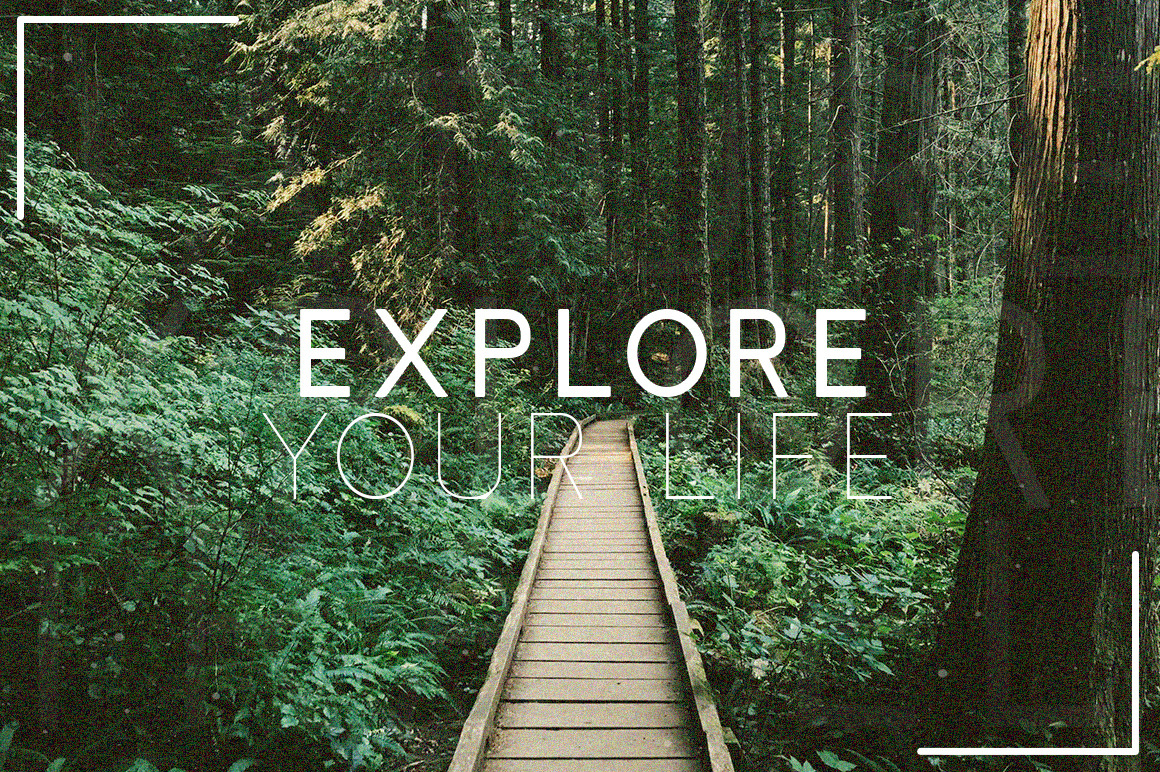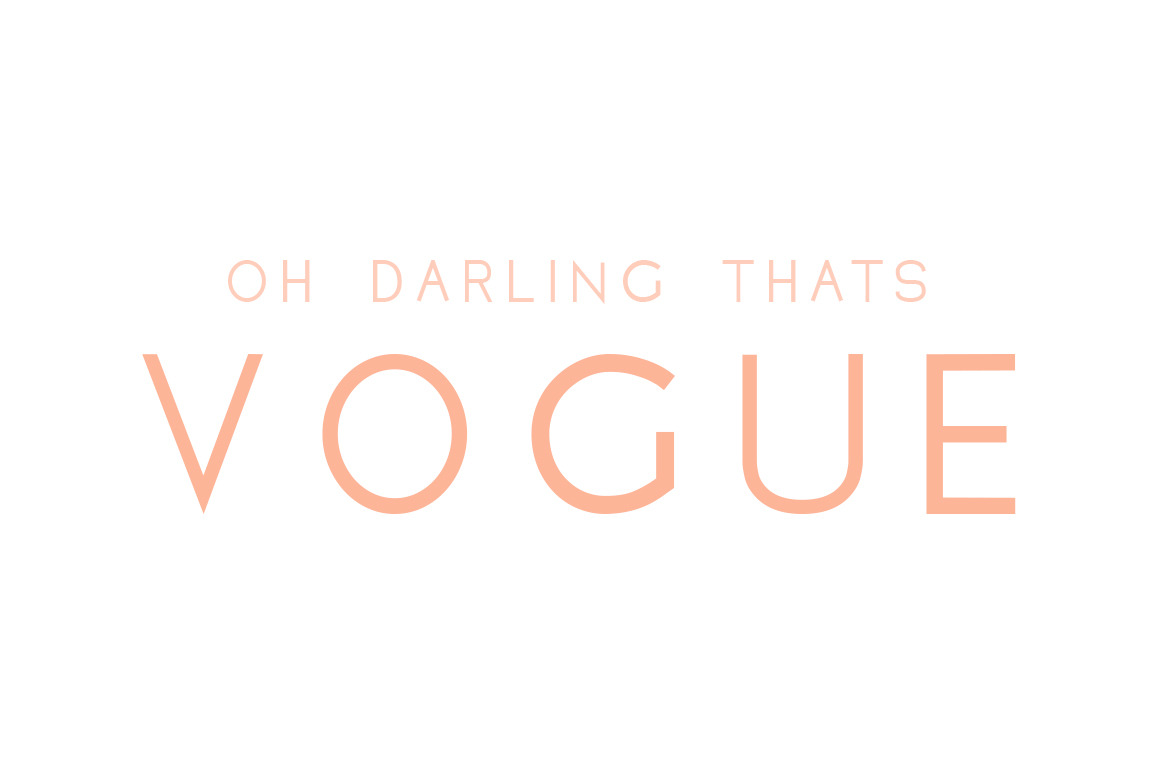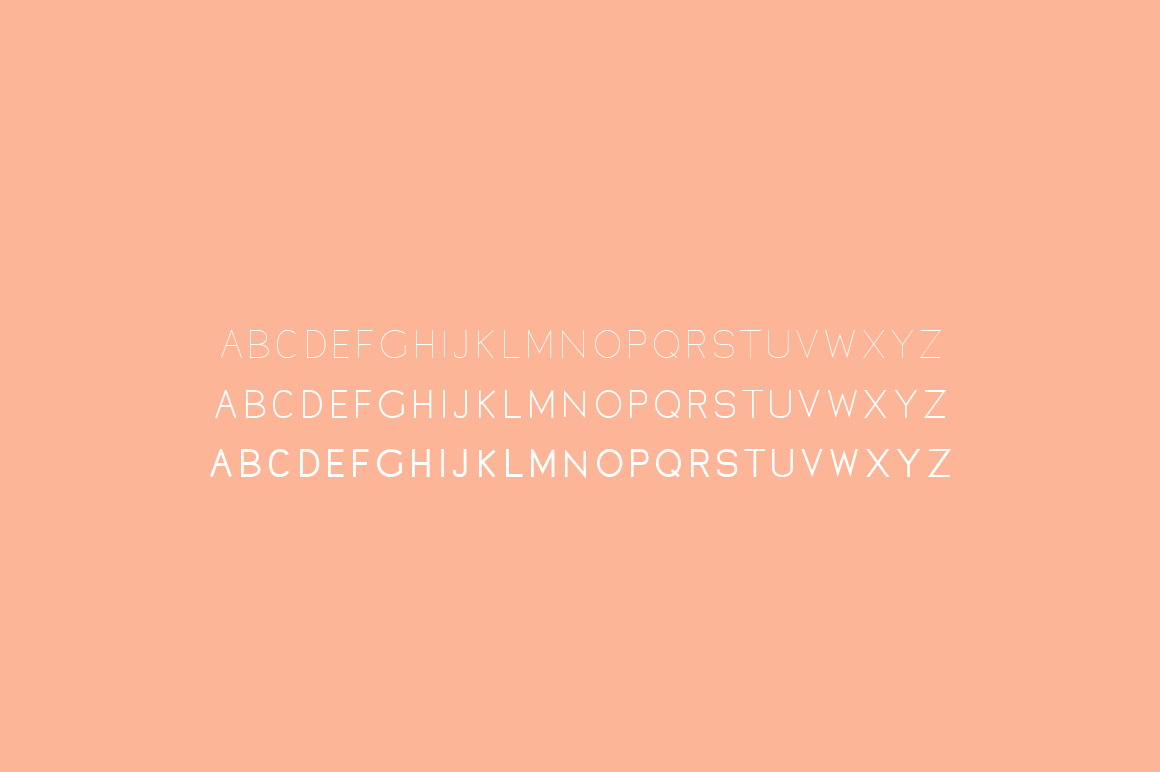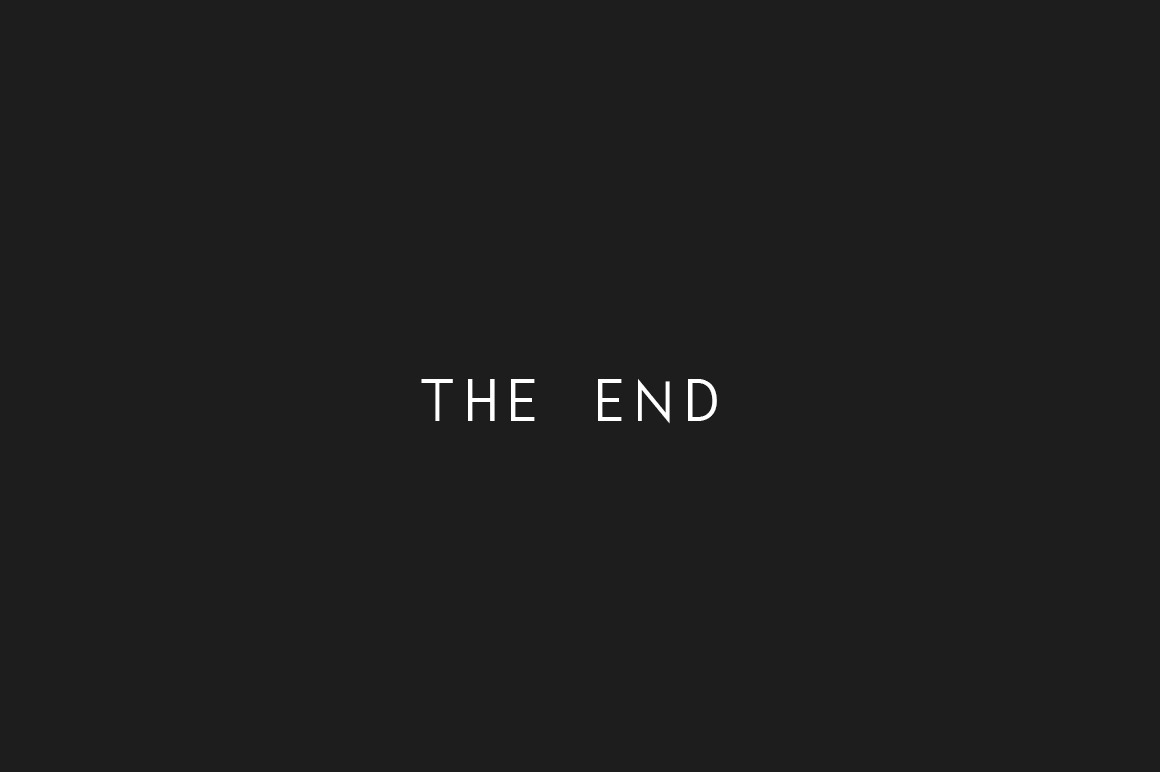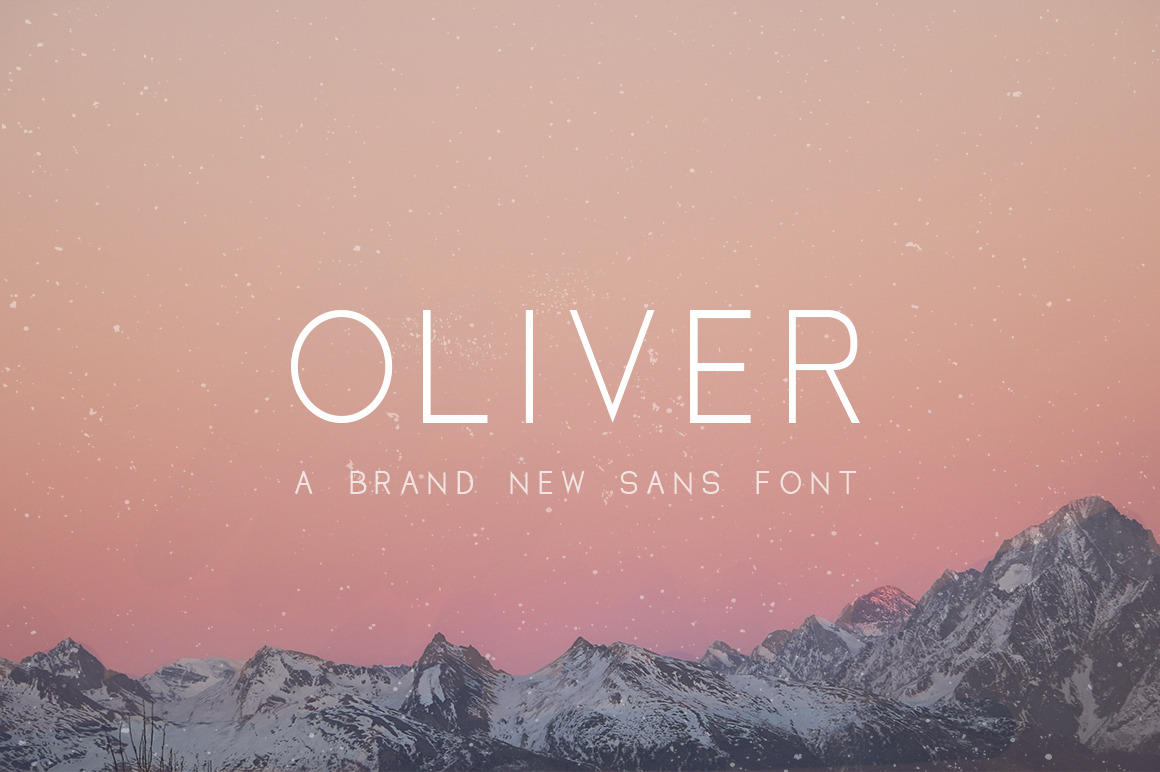
Oliver Font - 3 Weights Included
This Oliver Font is perfect for artisan olive oil branding, Mediterranean restaurant materials, traditional cooking publications, gourmet food packaging, rustic farm-to-table signage, organic agriculture communications, culinary heritage brands, authentic Italian establishments, premium kitchen equipment, and wholesome food lifestyle applications.
What makes this Oliver Font exciting is its artisanal authenticity that captures the timeless tradition and Mediterranean excellence of olive cultivation and culinary heritage. The font features warm letterforms with organic characteristics that convey artisanal quality, Mediterranean charm, and culinary sophistication. Its traditional character and olive-inspired design make it ideal for brands seeking to communicate culinary excellence, Mediterranean authenticity, and artisanal quality in food and hospitality markets.
The Oliver Font family includes light, regular, medium, and bold weights with Mediterranean alternates, culinary variants, and artisanal flourishes. This comprehensive traditional font family provides designers with authentic typographic tools to create warm compositions while maintaining the Mediterranean character essential for culinary brands and artisanal food communications.
Gourmet food companies and Mediterranean restaurants consistently choose Oliver Font Free Download for projects requiring authentic culinary appeal and artisanal credibility. This font's distinctive traditional character perfectly captures the Mediterranean excellence and culinary authenticity that resonate with audiences who appreciate artisanal foods, Mediterranean cuisine, and brands that embody traditional culinary craftsmanship and organic quality.
The warm construction of Oliver Font showcases naturally designed letterforms with Mediterranean proportions that ensure exceptional authenticity across all culinary applications. Its artisanal appearance and traditional character create memorable impressions while maintaining the readability necessary for effective culinary communication and Mediterranean food materials.
Professional designers appreciate how Oliver Font brings immediate Mediterranean authenticity and artisanal charm to brand communications. The font's traditional nature allows organizations to communicate culinary excellence and Mediterranean heritage while maintaining the professional quality necessary for effective positioning in gourmet food and Mediterranean hospitality markets.
The wholesome appeal of Oliver Font makes it particularly effective for brands emphasizing Mediterranean tradition, artisanal quality, and culinary heritage. Its warm character resonates strongly with audiences who appreciate traditional cooking, Mediterranean culture, and brands that represent the authentic warmth and artisanal excellence of Mediterranean culinary traditions.
Whether developing branding for artisan olive producers or creating materials for Mediterranean restaurants, Oliver Font Free Download provides the authentic typographic foundation that culinary brands need to communicate their Mediterranean excellence, artisanal quality, and the traditional warmth that defines Mediterranean cuisine and culinary heritage achievement.